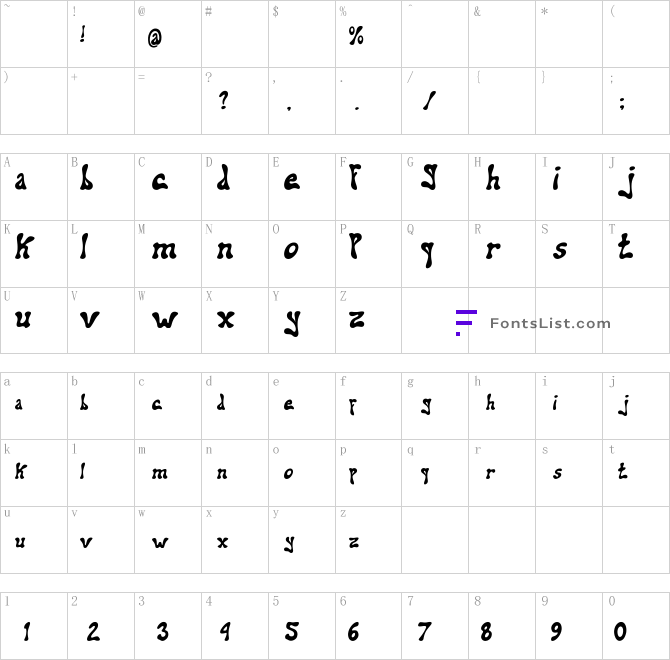
- Font Name:addiel
addiel.ttf is a very beautiful artistic font, addiel.ttf is widely used in the design and printing of various books and pictures,addiel.ttf has a strong visual impact,addiel.ttf is a commonly used font in newspapers, magazines and books, and is used in posters, e-commerce Poster design, store design, logo design, font design and other fields.addiel.